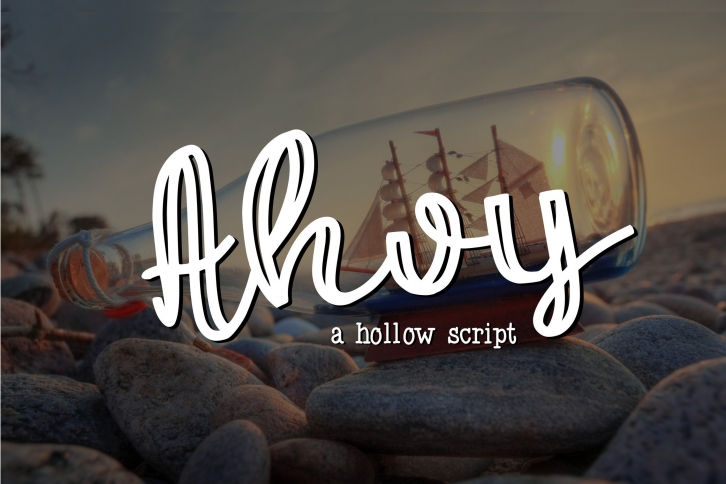
Ahoy Matey! Looking for a fun and unique font to add to your next project? Look no further than Ahoy font! This hollow script font was created to give a faux calligraphy look and is perfect for adding a touch of whimsy to any design.